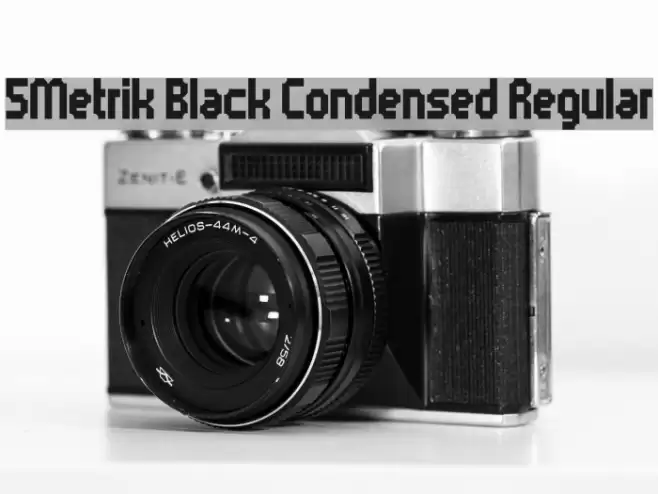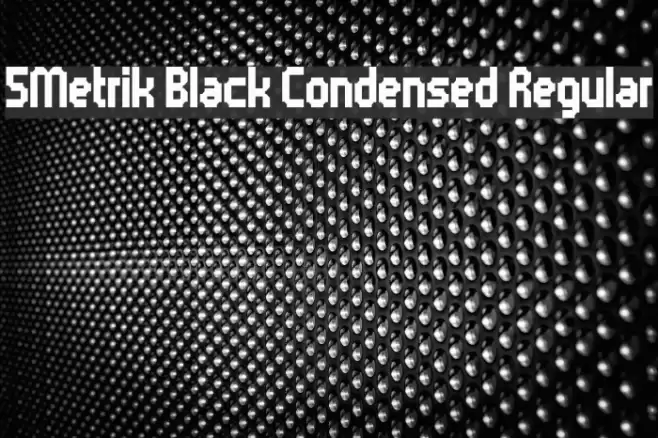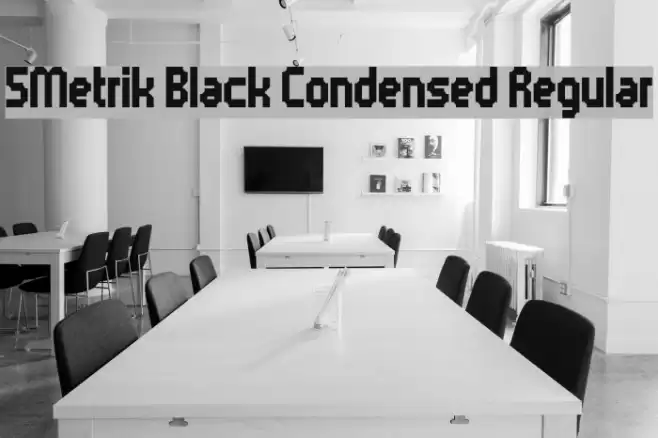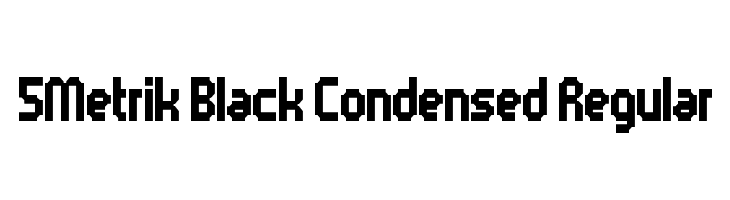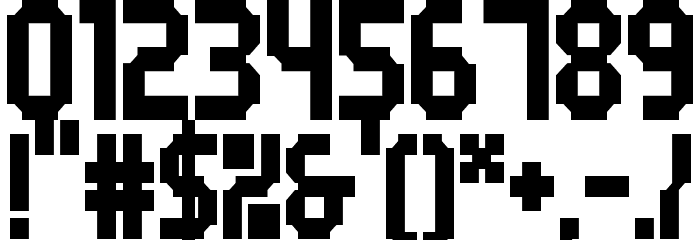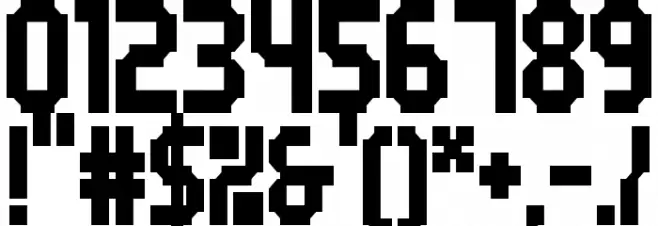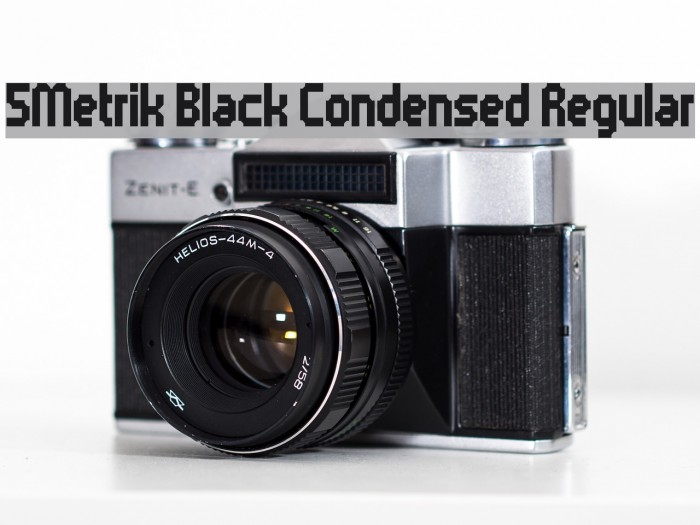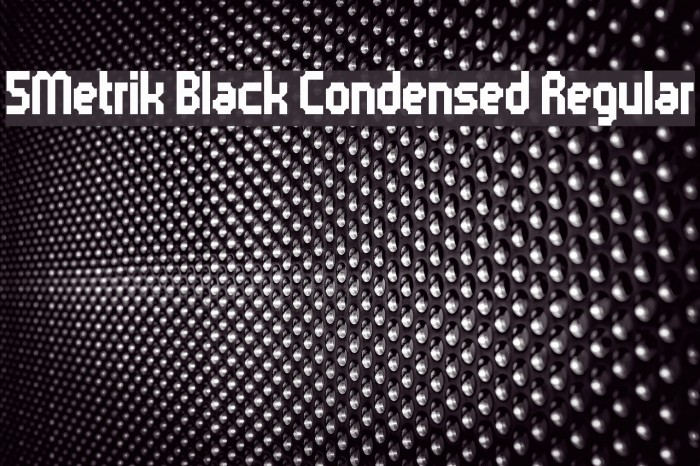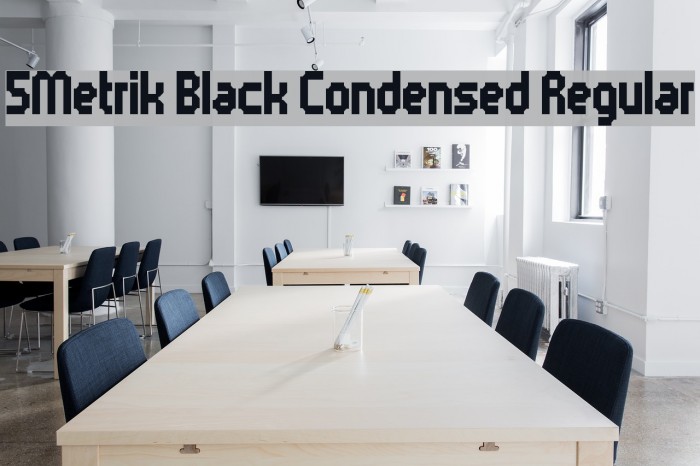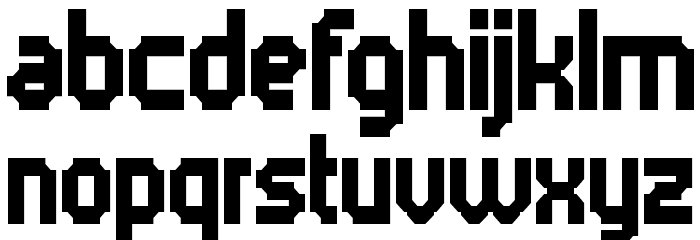
5Metrik Black Condensed Regular Font
5Metrik Black Condensed Regular Description
This font features a bold and geometric design with a condensed structure. The characters are constructed with thick, block-like strokes that give it a strong and impactful appearance. The angular and modular nature of the letters creates a futuristic and industrial feel. The uppercase and lowercase letters maintain a consistent style, with sharp edges and uniform height. Numbers and special characters follow the same design principles, ensuring a cohesive look across all elements. This font is highly legible and stands out due to its distinct and robust character shapes.
A bold, geometric, and condensed font with a futuristic and industrial style from Uncategorized fonts.
- Proposed Projects: Ideal for branding, posters, headlines, and any design requiring a strong visual impact.